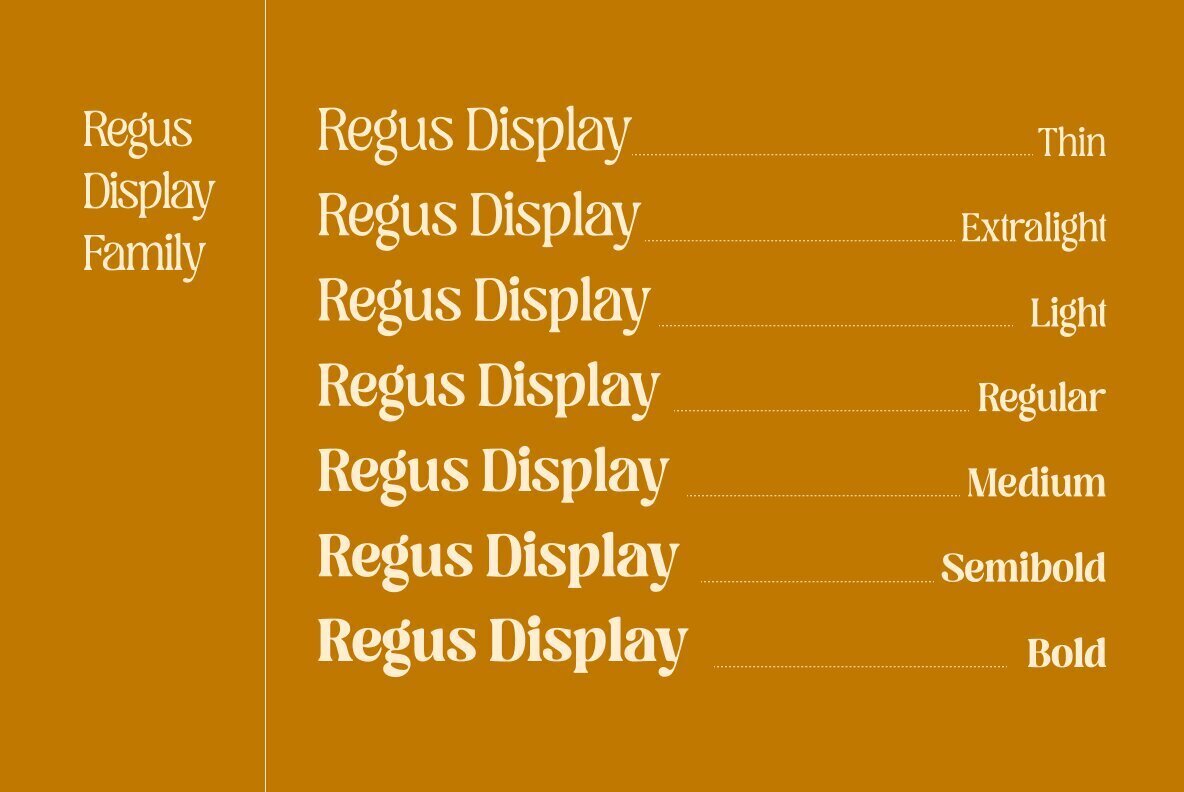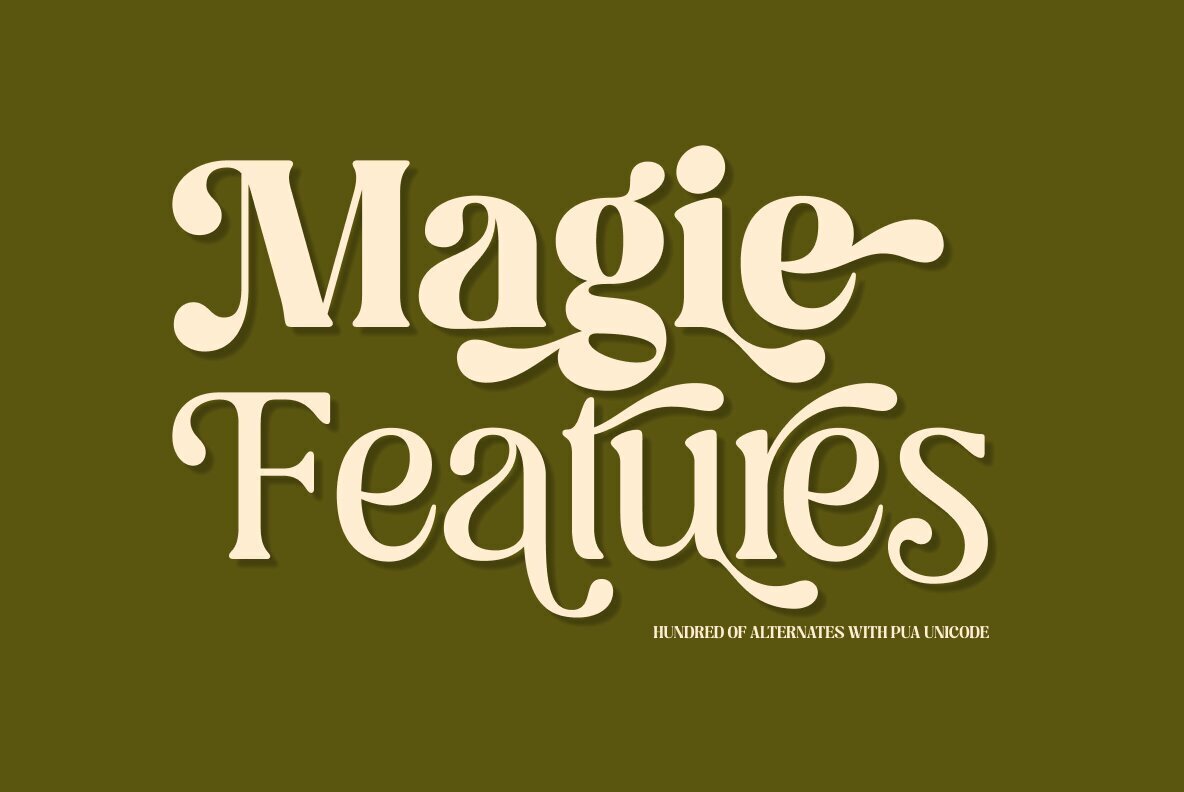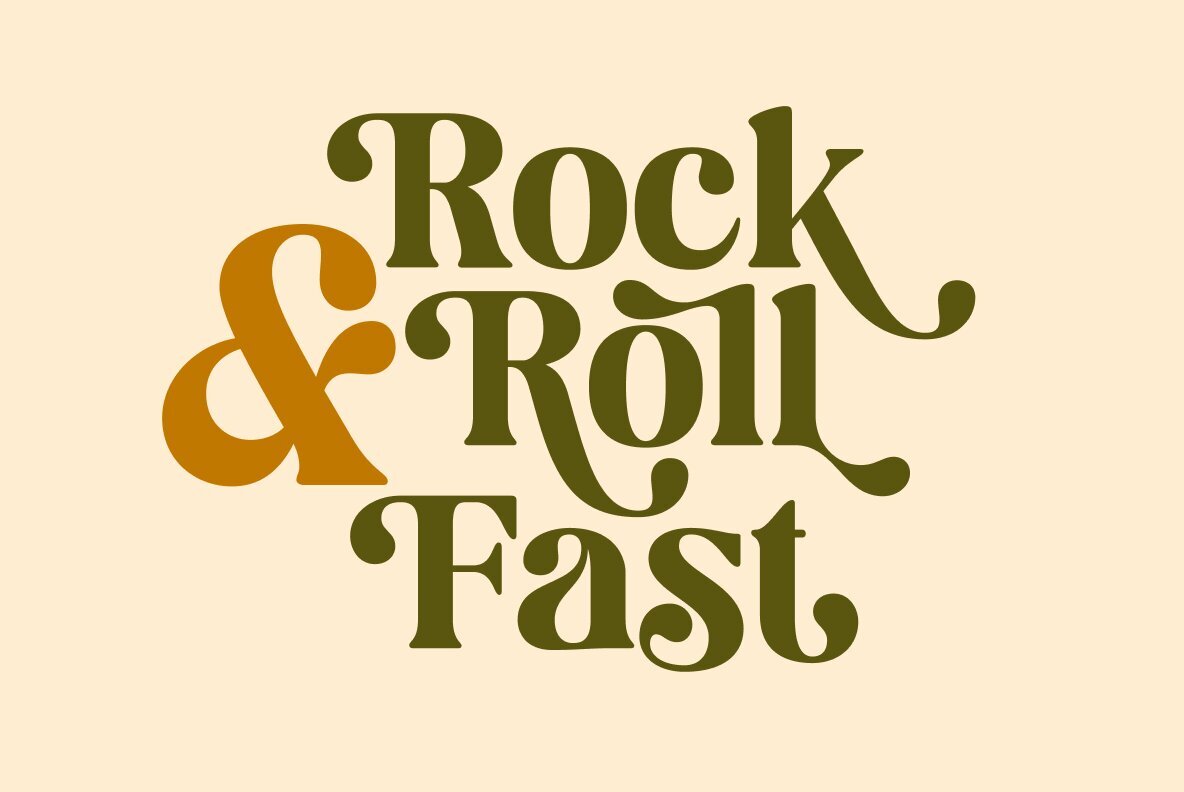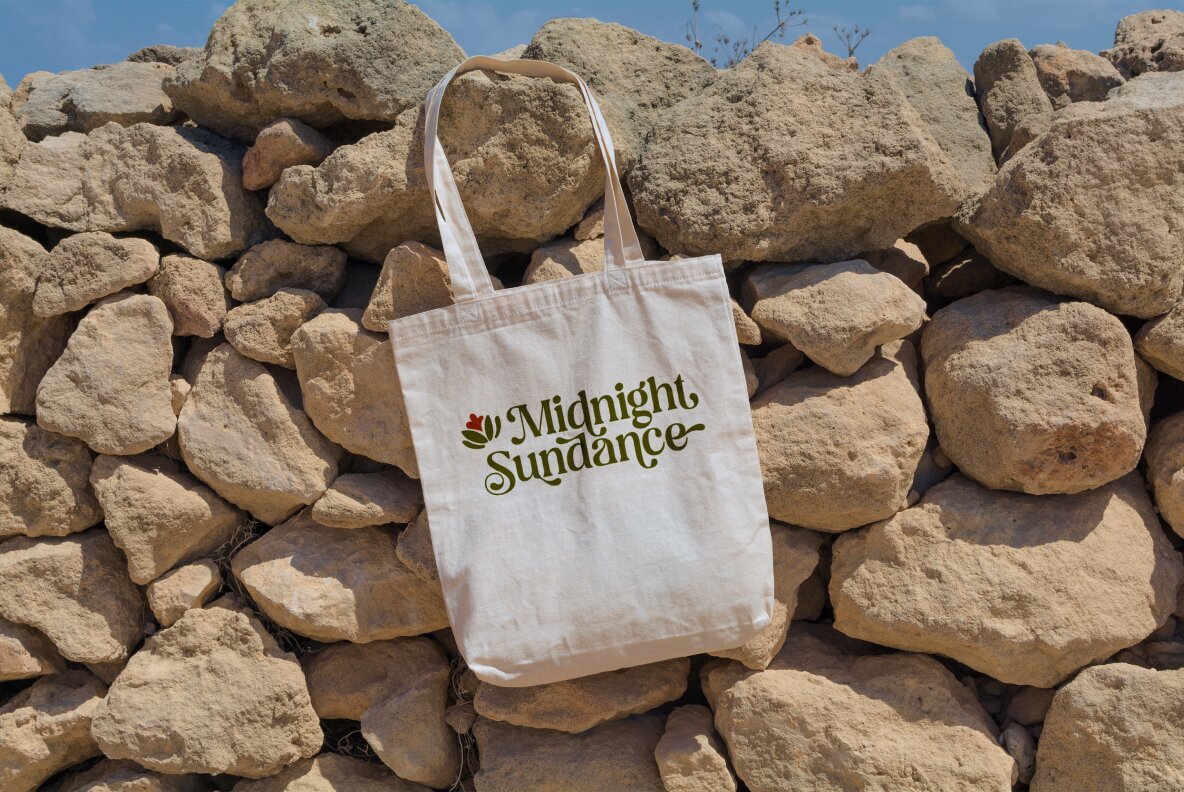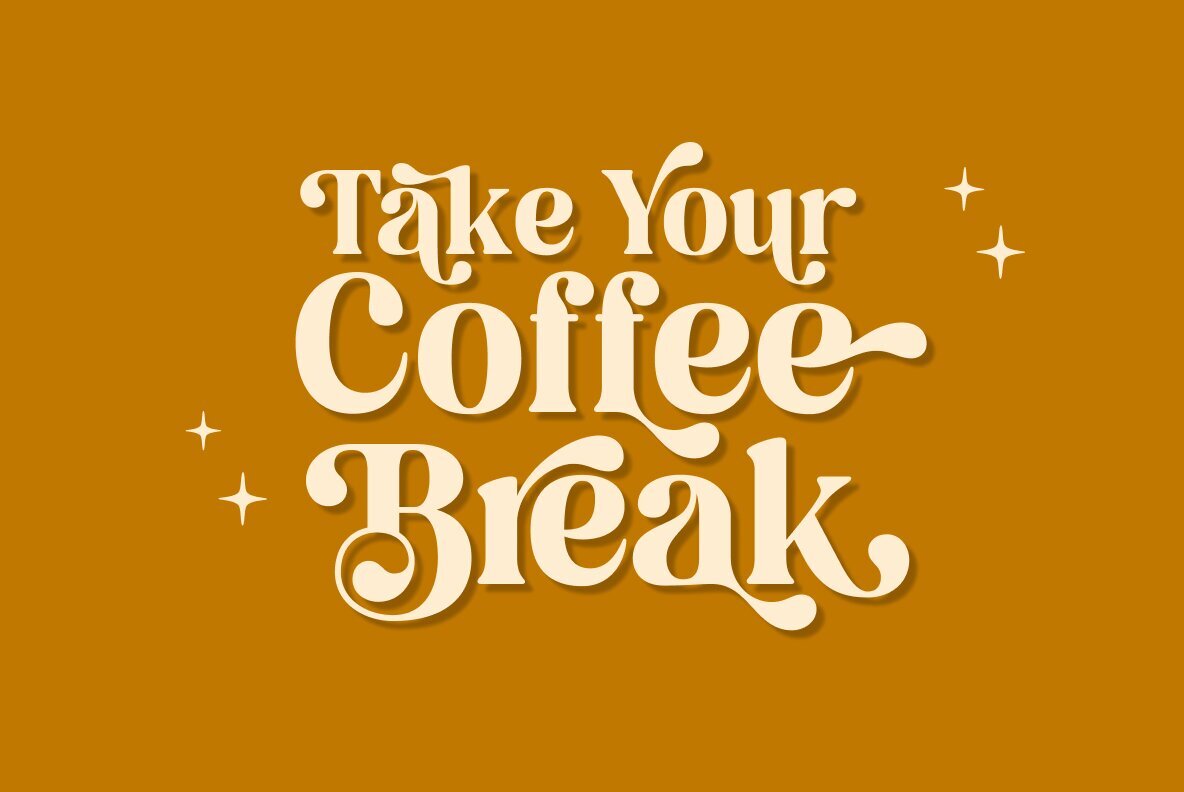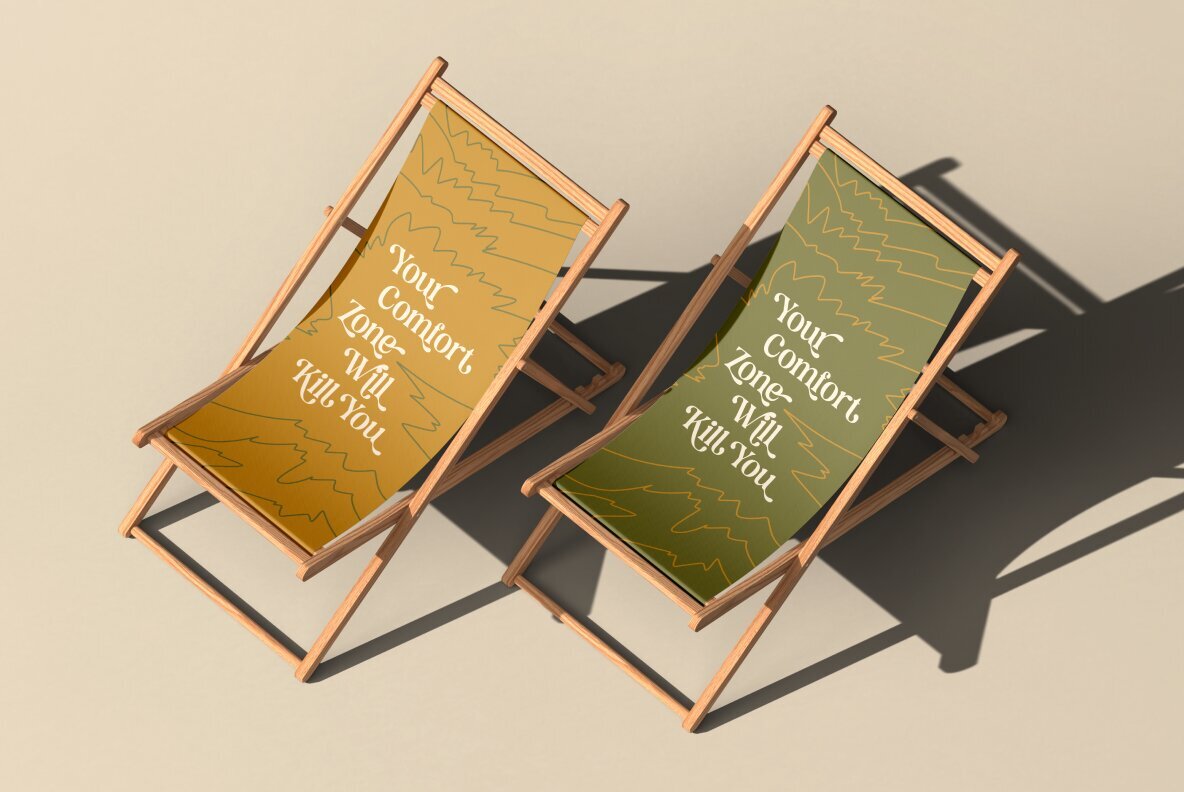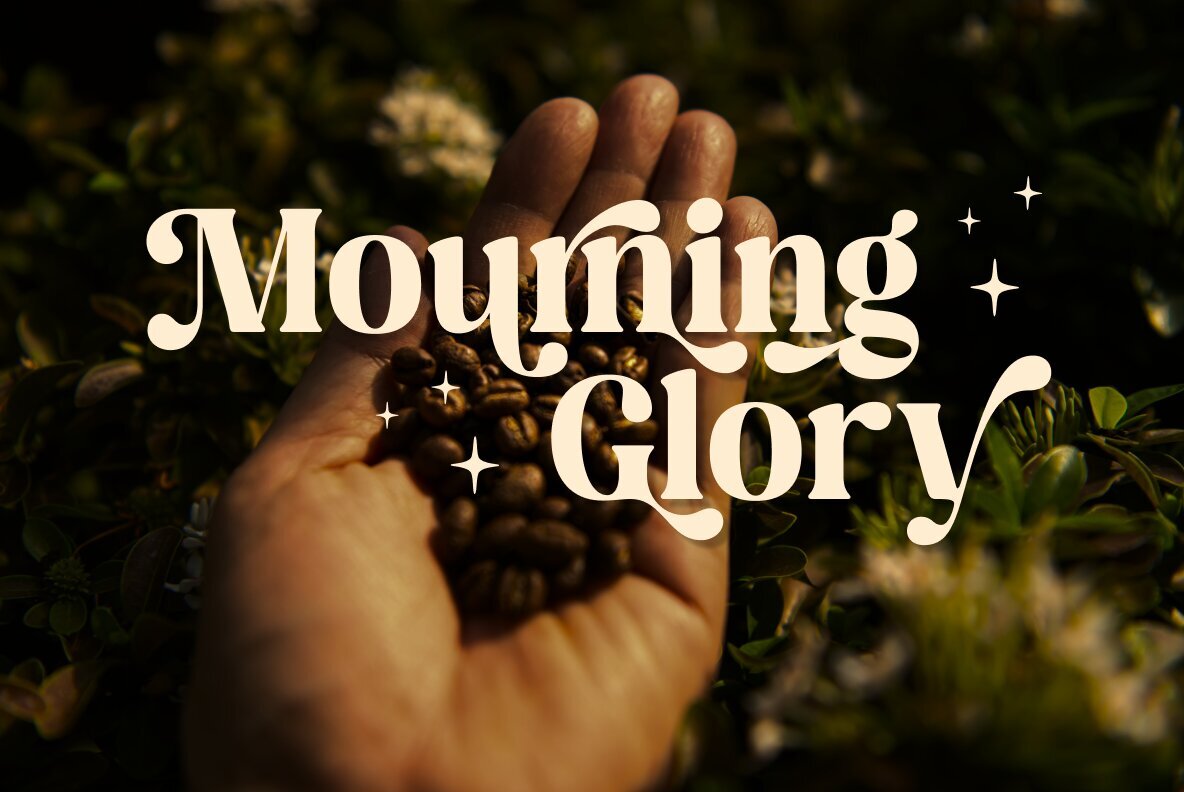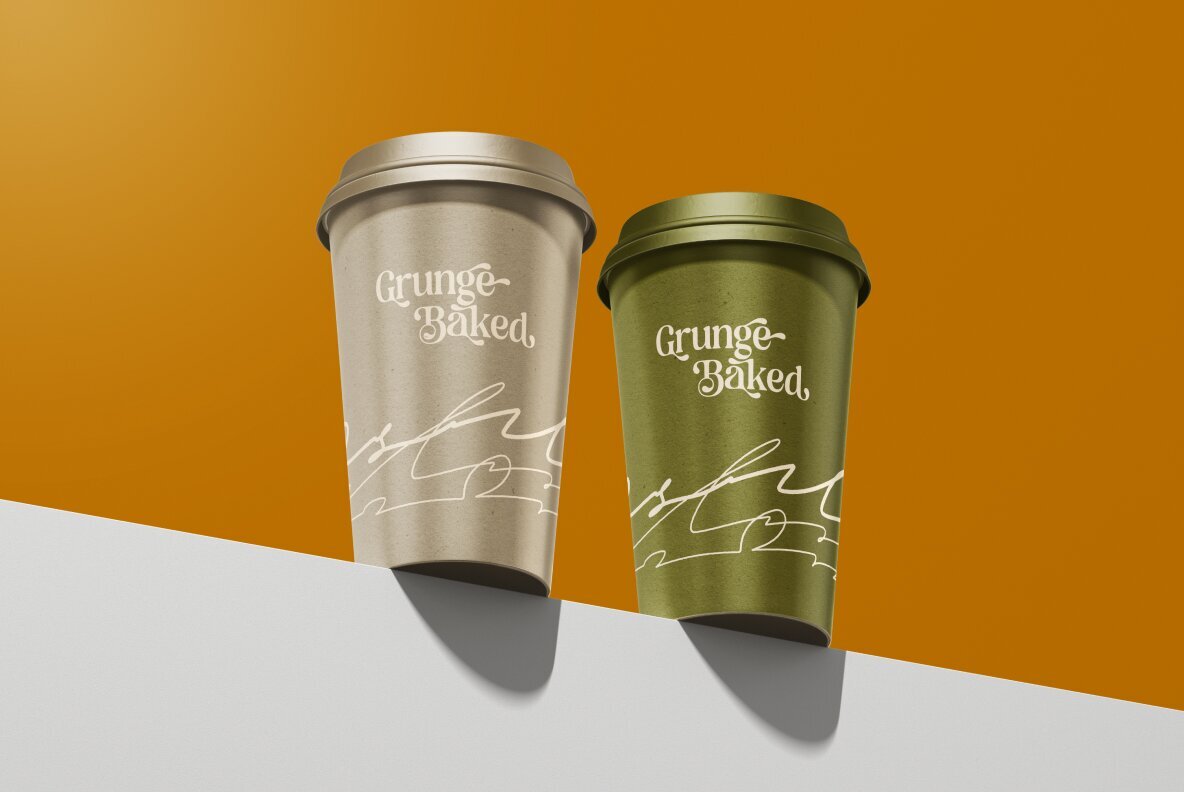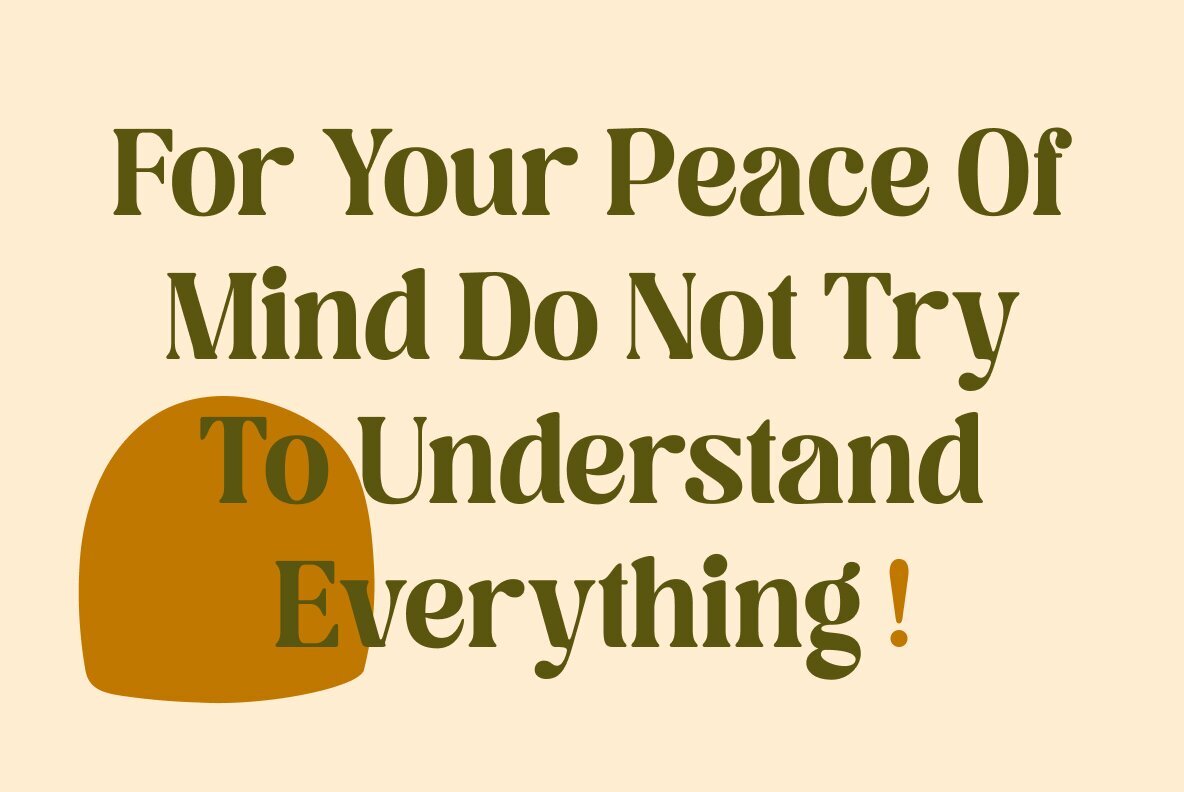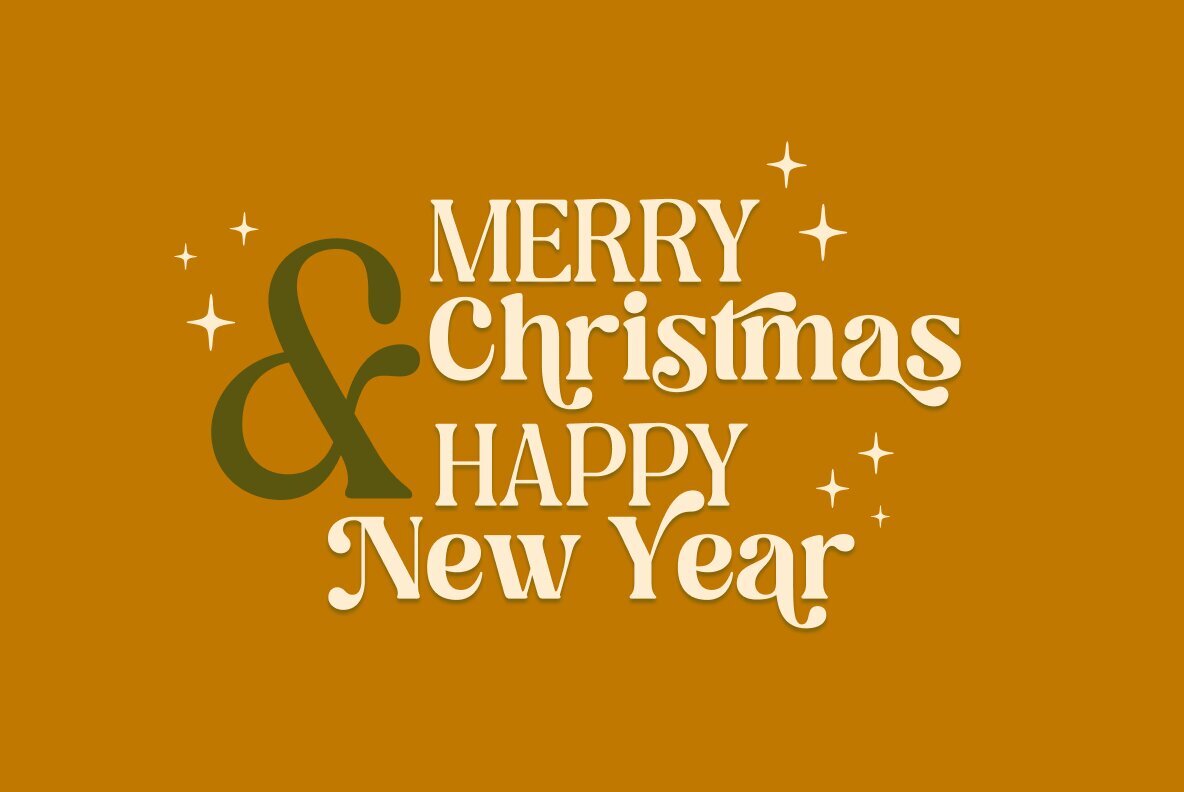
Regus Display Font
Regus Display is a sophisticated serif font that draws inspiration from the vintage typefaces and classic designs spanning the '60s to '90s. It seamlessly blends nostalgia with a modern twist, making it ideal for magazine layouts, branding, and editorial projects. The font offers versatility with its 7 different weights, ranging from thin to bold, to accommodate various design needs with ease.
Additionally, Regus Display provides an extensive array of alternates, enabling designers to craft stunning curves and intricate shapes swiftly. This feature-rich font allows for the creation of unique, eye-catching designs with minimal effort. It's an excellent choice for projects that require a blend of sophistication, creativity, and a hint of vintage flair, ensuring your work stands out with elegance and style.